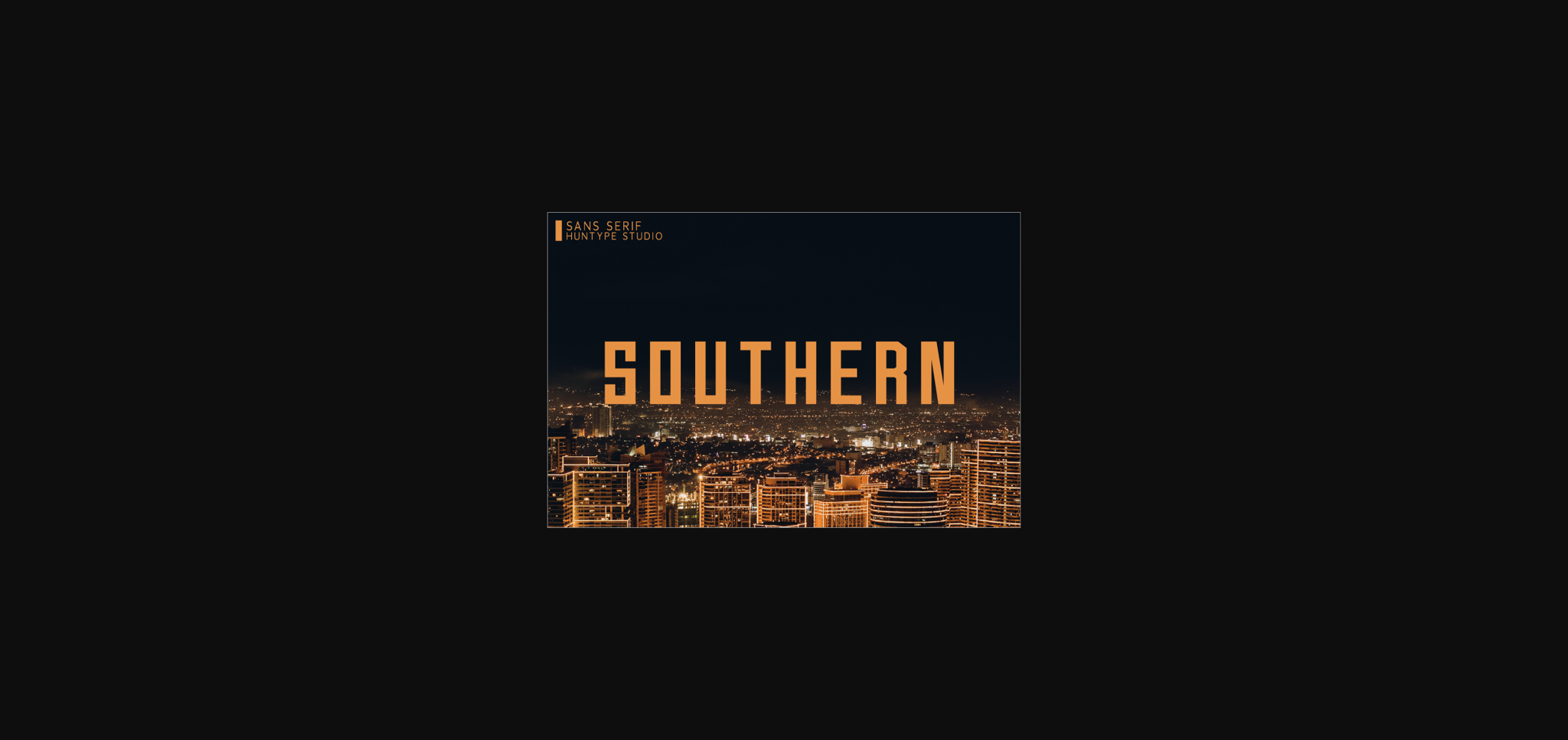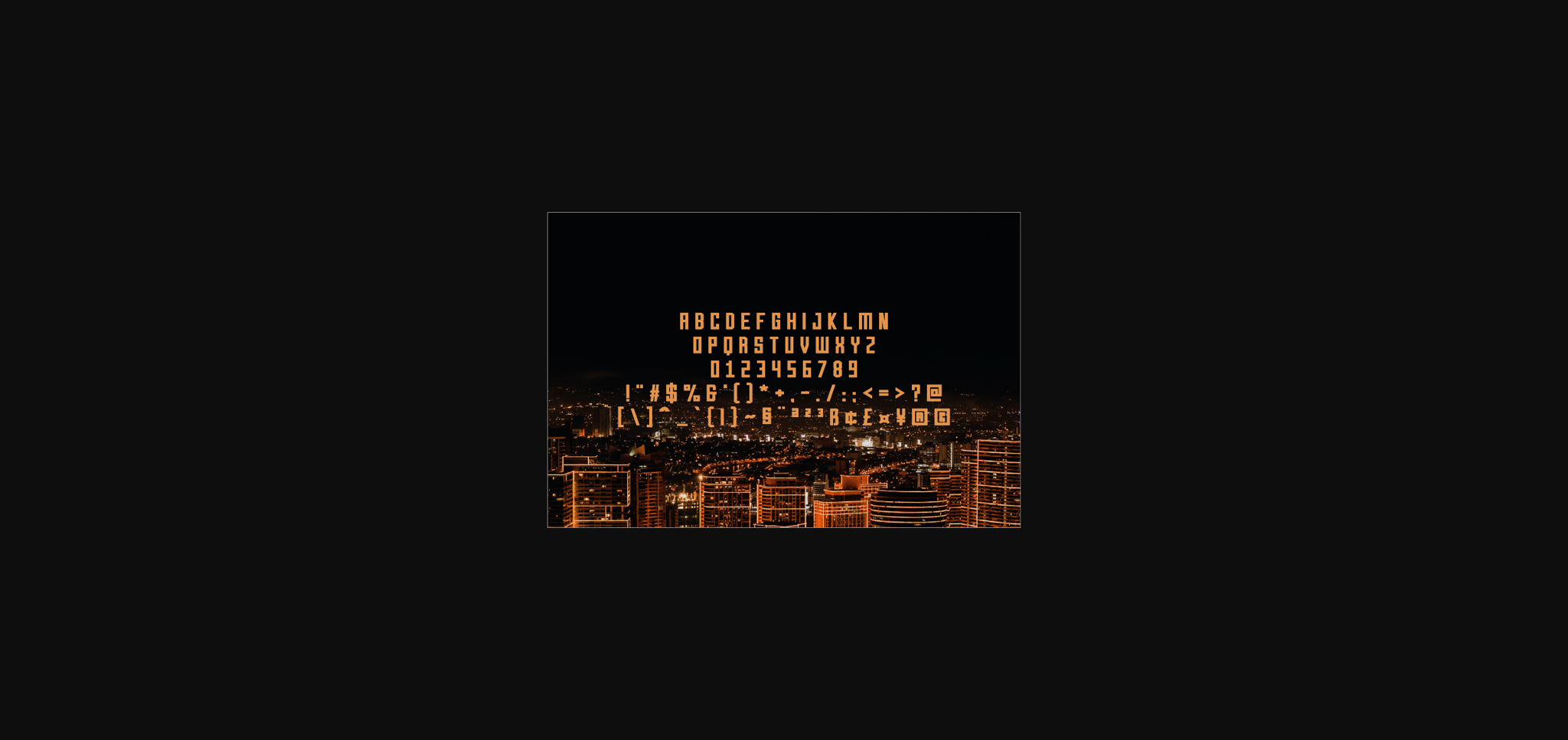
About Southern Font
Southern is a simple and casual sans serif font with an undeniably clean feel. With its neat and beautiful arrangement of letters, this typeface will look outstanding in both formal and non-formal designs.